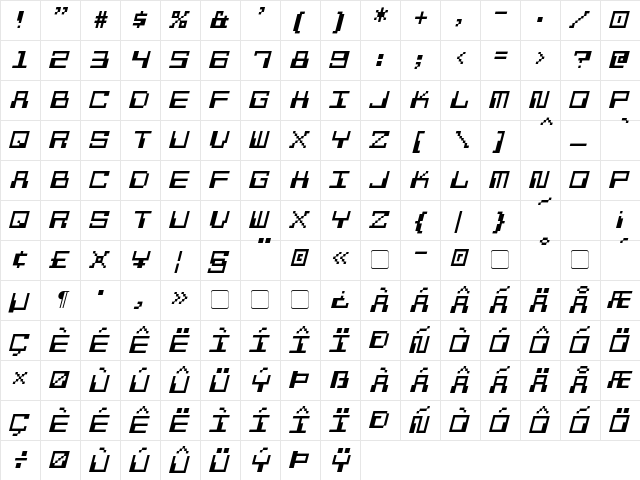
Pixel Calculon Italic
Design Context for Pixel Calculon Typeface
Pixel Calculon is rooted in pixel-grid construction, making it a natural fit for game UI, retro computing aesthetics, and digital nostalgia projects. The dynamic lean of this cut emphasises speed and emphasis in any layout.
Well-suited to indie game interfaces, retro computing aesthetics, and pixel art-adjacent design work.
Pro Tip: Use Pixel Calculon at sizes that align with its pixel grid for the sharpest rendering — scaling to non-integer multiples can introduce unwanted blur.